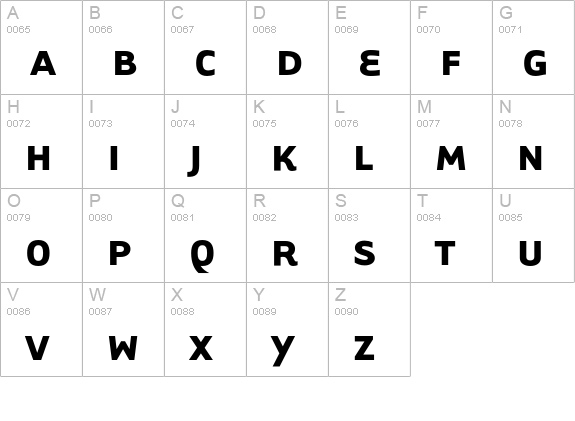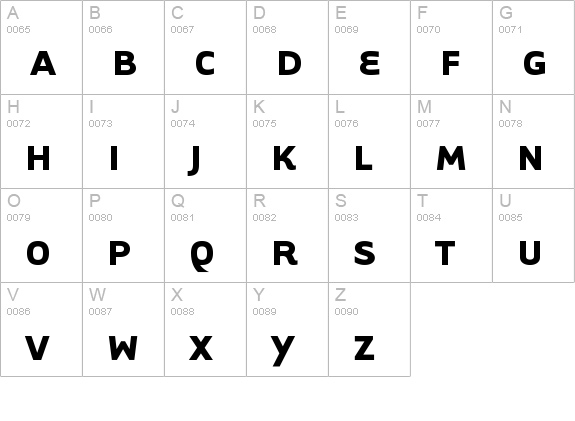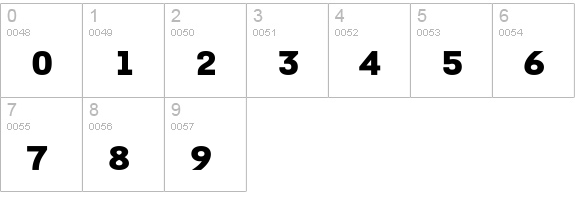
Introducing TarzanaWideBold, a captivating and bold font that is sure to make a lasting impression. This unique typeface exudes a sense of confidence and modernity, making it the perfect choice for anyone looking to add a touch of elegance to their designs. With its sleek and wide letterforms, TarzanaWideBold commands attention and effortlessly grabs the viewer's gaze. Its strong and powerful presence ensures that your message will be conveyed with clarity and impact, whether it is for a headline, logo, or any other design project. But what sets TarzanaWideBold apart from other fonts is not just its striking aesthetics, but the fact that it is free. Yes, you read that right! This exceptional font is freely available to download at FontsMarket.com, allowing you to elevate your designs without breaking the bank. Whether you're a graphic designer, a creative professional, or simply someone with an eye for exceptional typography, TarzanaWideBold is the ideal choice for your next project. Its versatility and timeless appeal make it suitable for a wide range of applications, from print to digital, ensuring that your designs will always stand out from the crowd. So why wait? Take advantage of this incredible opportunity to elevate your designs with TarzanaWideBold. Download it for free at FontsMarket.com and unleash the full potential of your creativity.